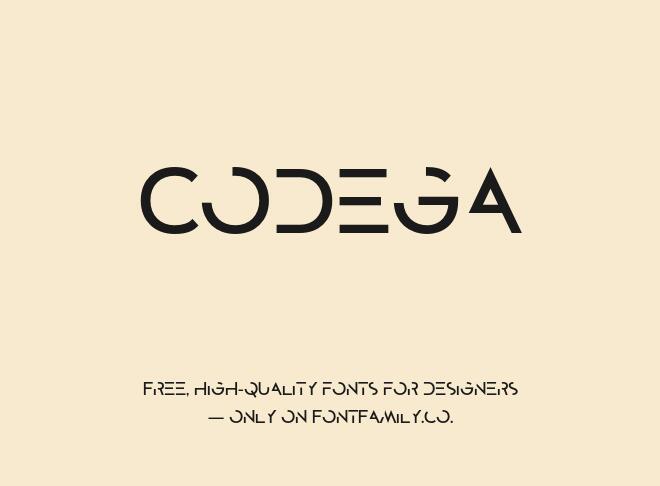
Codega Font
Codega Font is a modern, geometric, and minimalistic typeface that combines simplicity with sophistication. Designed by Codega Design Studio, this font is characterized by its clean lines and sharp angles, making it an excellent choice for a variety of design projects, from logos and branding to website headers and social media graphics. Its sans serif style gives it a contemporary feel, while its minimalistic approach ensures it never overwhelms the design. With its balance of form and function, Codega Font can be compared to popular fonts like Futura and Avenir, but stands out with its unique character and style. It's a versatile font that can adapt to both professional and creative settings, making it a valuable addition to any designer's toolkit.